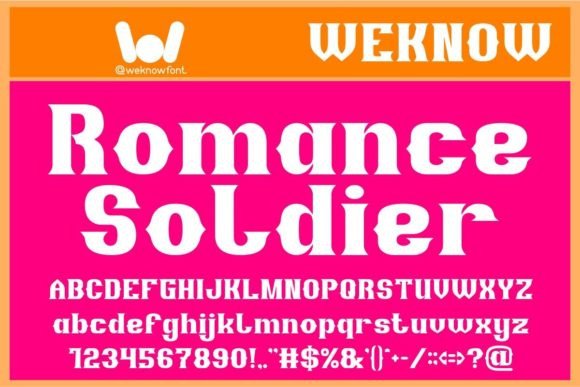
Introducing Romance Soldier Font, the majestic and awe-inspiring display font that commands attention with its bold and captivating presence. This modern Gothic masterpiece will elevate your designs to unprecedented heights, leaving an indelible mark on the minds of your audience.
Romance Soldier is the perfect font for creating book headings that resonate with timeless elegance and intrigue. Its sharp edges and sweeping curves are reminiscent of ancient manuscripts, evoking a sense of mystery and adventure. Whether you're crafting a captivating novel, a gripping screenplay, or an unforgettable memoir, Romance Soldier will add a touch of magic to your words, drawing readers into your world.
Be the talk of the town with logos and logotypes that radiate confidence and style. Romance Soldier's bold strokes and captivating presence will make your brand stand out from the crowd. Let your corporate identity and brand identity shine with a font that exudes sophistication and power. From apparel designs that make a statement to posters that demand attention, Romance Soldier is the perfect choice for those who dare to be different.
Create posters, music, movies, and games that transport your audience to new realms of imagination. Romance Soldier's bold and charismatic character will bring your creative visions to life, adding depth and intrigue to every project. Whether you're designing a captivating magazine spread, an exhilarating book cover, or an unforgettable comic book, Romance Soldier will elevate your designs to new heights.
Let your creativity run wild on YouTube, Instagram, and websites with a font that matches your vibrant personality. Romance Soldier's eye-catching style will make your online presence unforgettable, leaving a lasting impression on visitors. With its versatility and undeniable charm, Romance Soldier will transform your designs into captivating experiences that leave them craving for more.